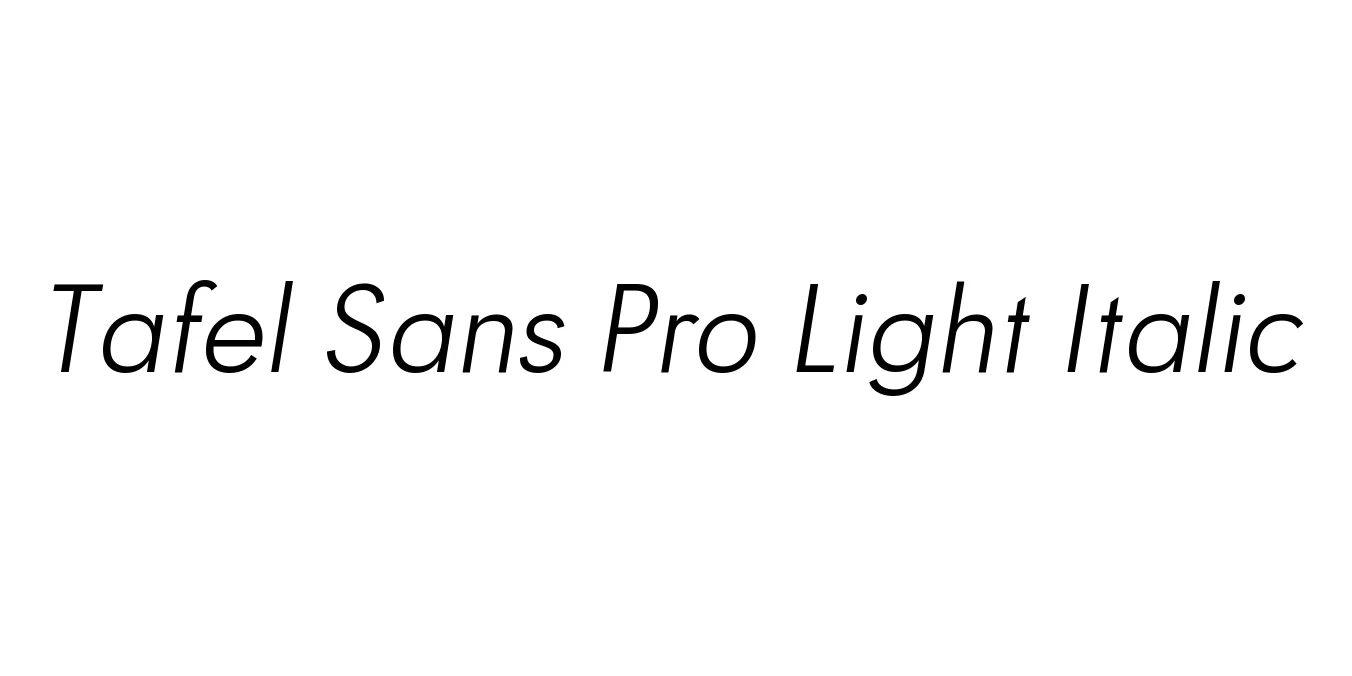
Tafel Sans Pro Light Italic
Designed by Nils Thomsen
Tafel Sans Pro Light Italic is a contemporary sans-serif typeface that masterfully blends humanistic qualities with a clean, geometric structure. Developed by designer Nils Thomsen and published by TypeMates, this font family was crafted to provide a neutral yet friendly aesthetic suitable for a wide range of professional applications. The Light Italic weight provides a delicate, slanted profile that adds a sense of movement and sophistication to text without sacrificing clarity or readability.
The Pro version of the family features expanded character sets and refined OpenType functionality, making it a robust choice for international communication and complex typographic layouts. Drawing inspiration from classic 20th-century humanist types, Tafel Sans Pro has been optimized for high-resolution displays and modern print techniques, ensuring that its subtle details and elegant curves remain crisp across all mediums, from mobile screens to physical stationery.
Tafel Sans Pro Light Italic Best Uses
Perfect for pull quotes, captions, and adding emphasis in high-end magazines.
Ideal for creating a modern, professional, and approachable brand identity.
Excellent for elegant sub-headings and user interface elements that require a light, clean touch.
Highly effective for brochure layouts and sophisticated advertising copy.